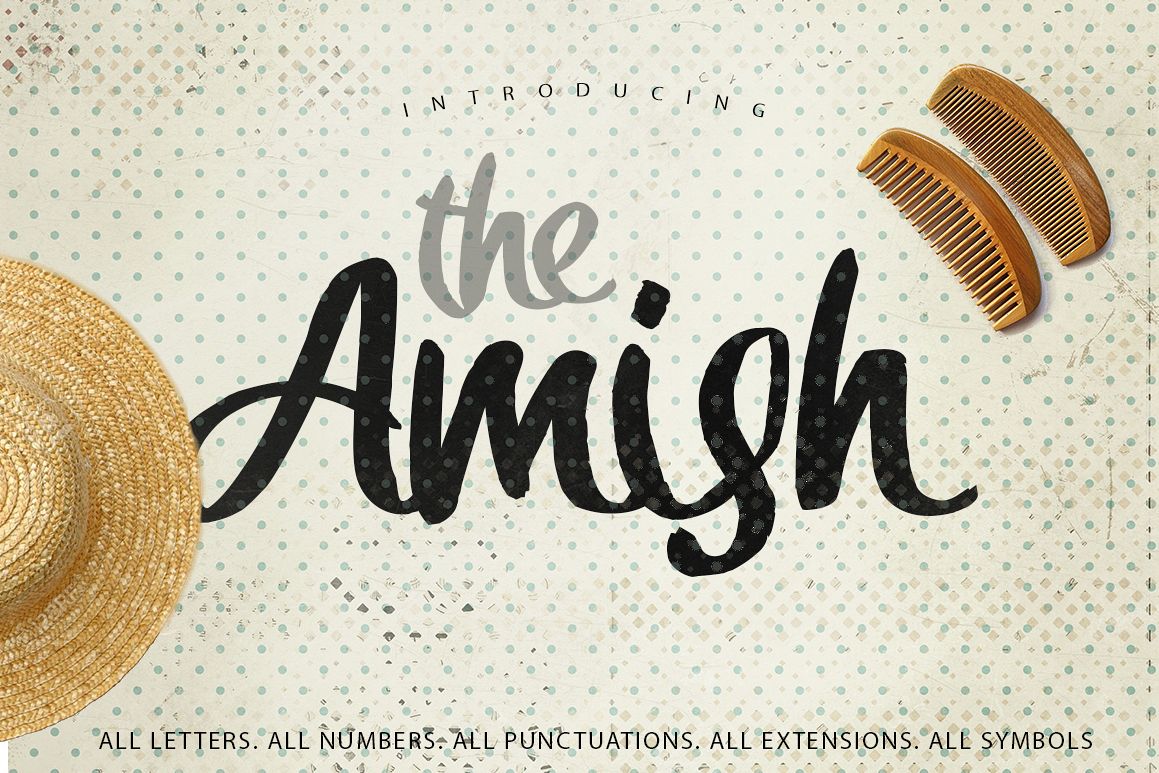
The Amish Typeface
Amish-Regular
Amish is a unique roundhand font to use with the tecnologie. Be free to take a personality on your designs.
All letters. All numbers. All punctuations. All extensions. All symbols